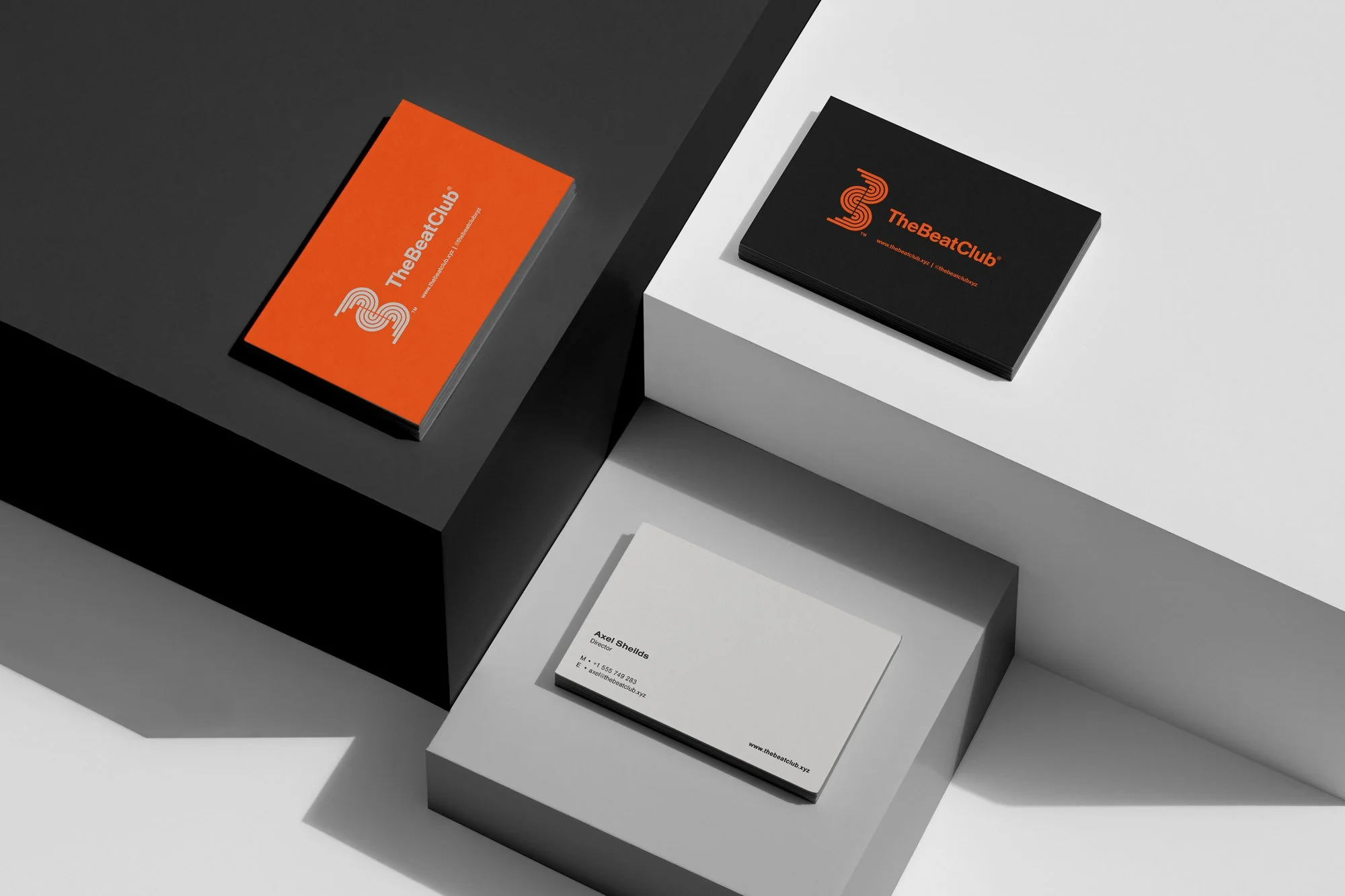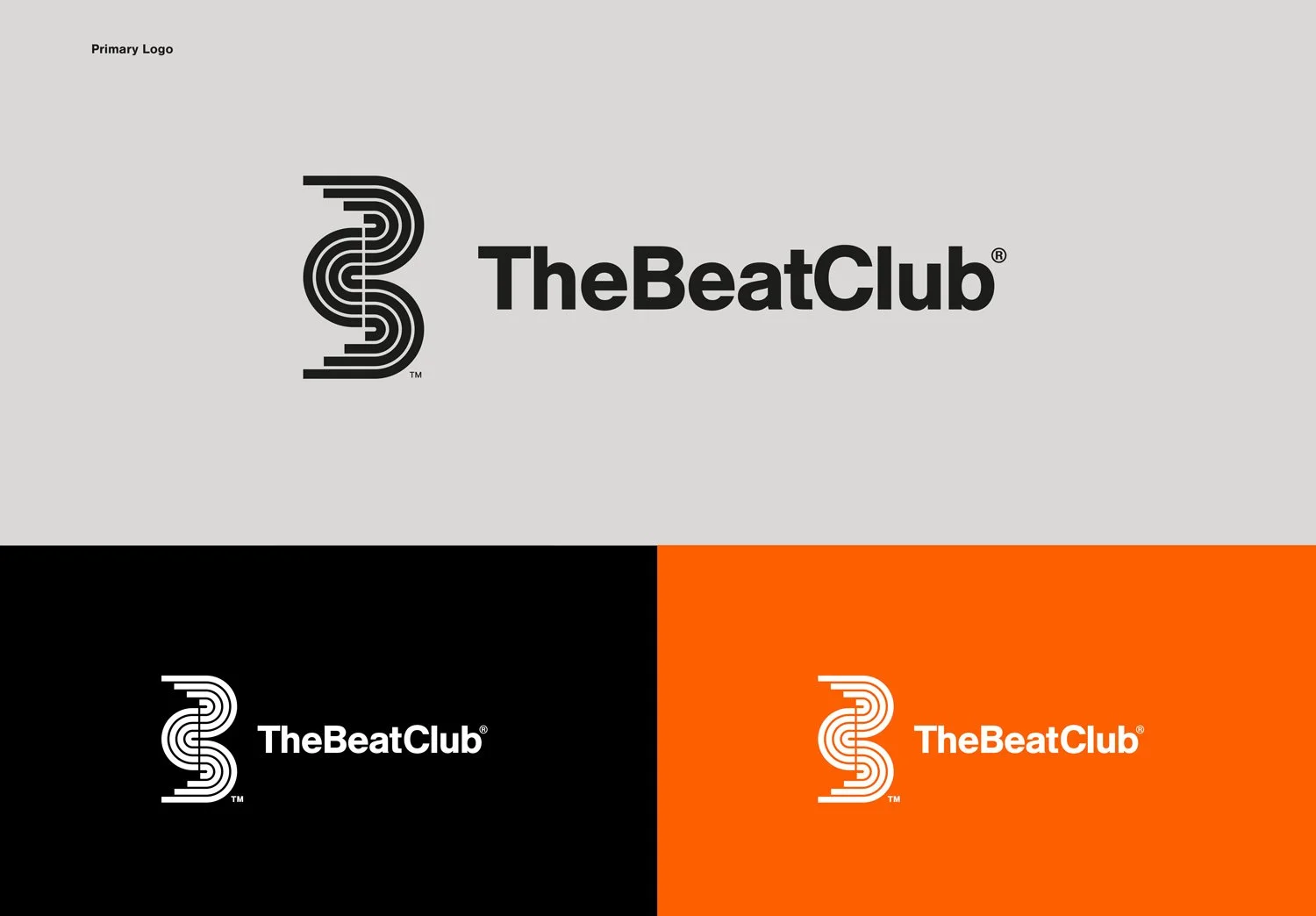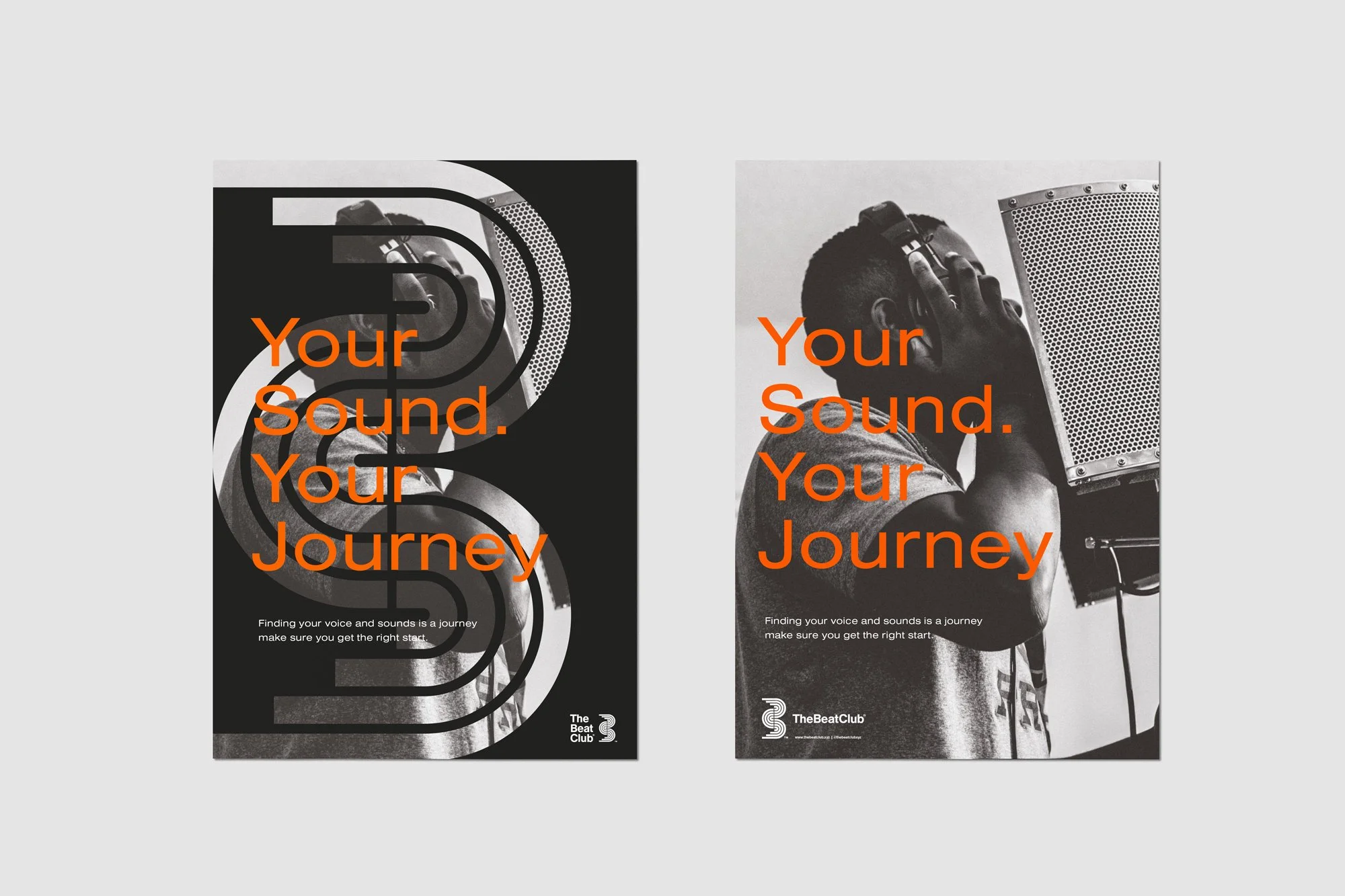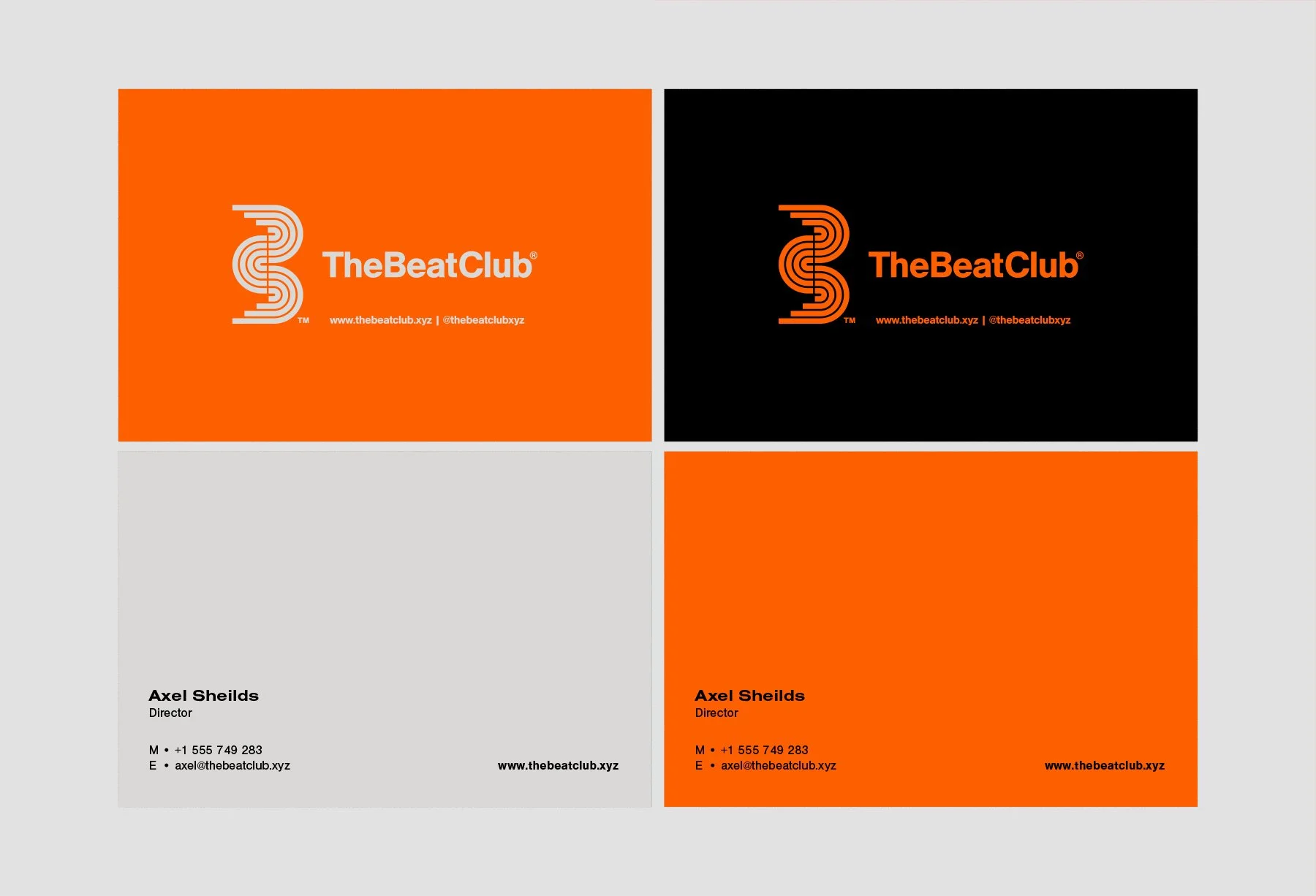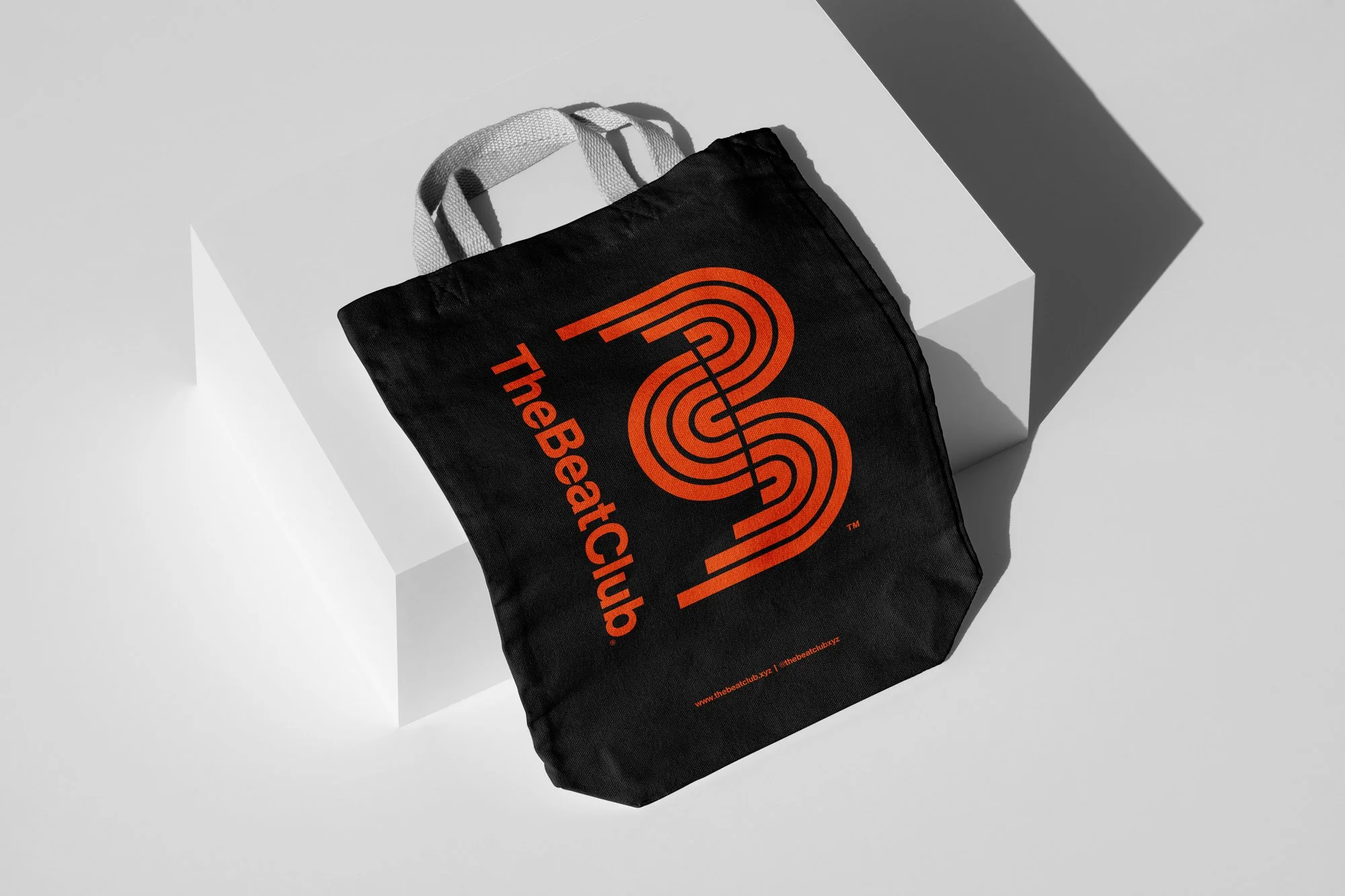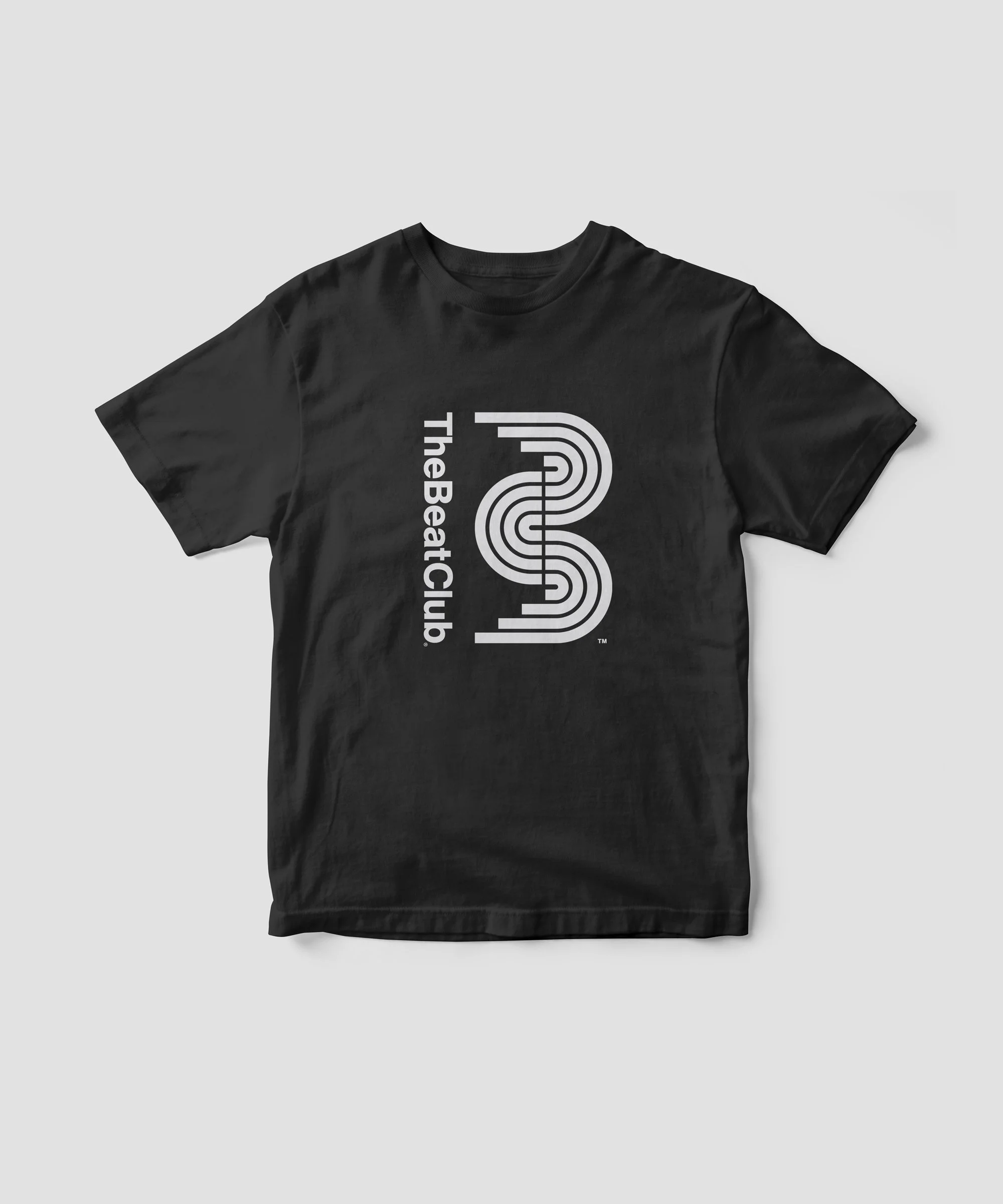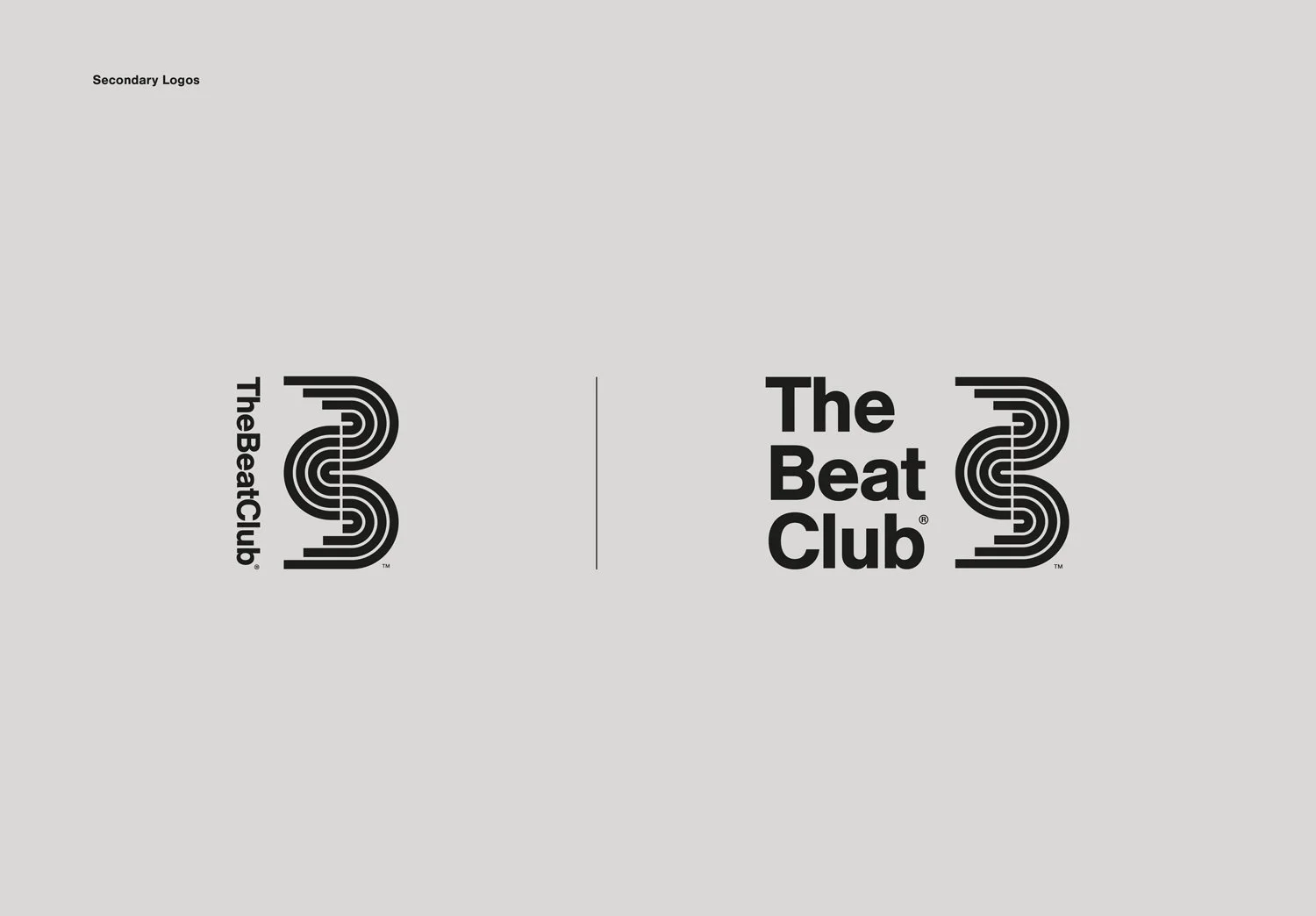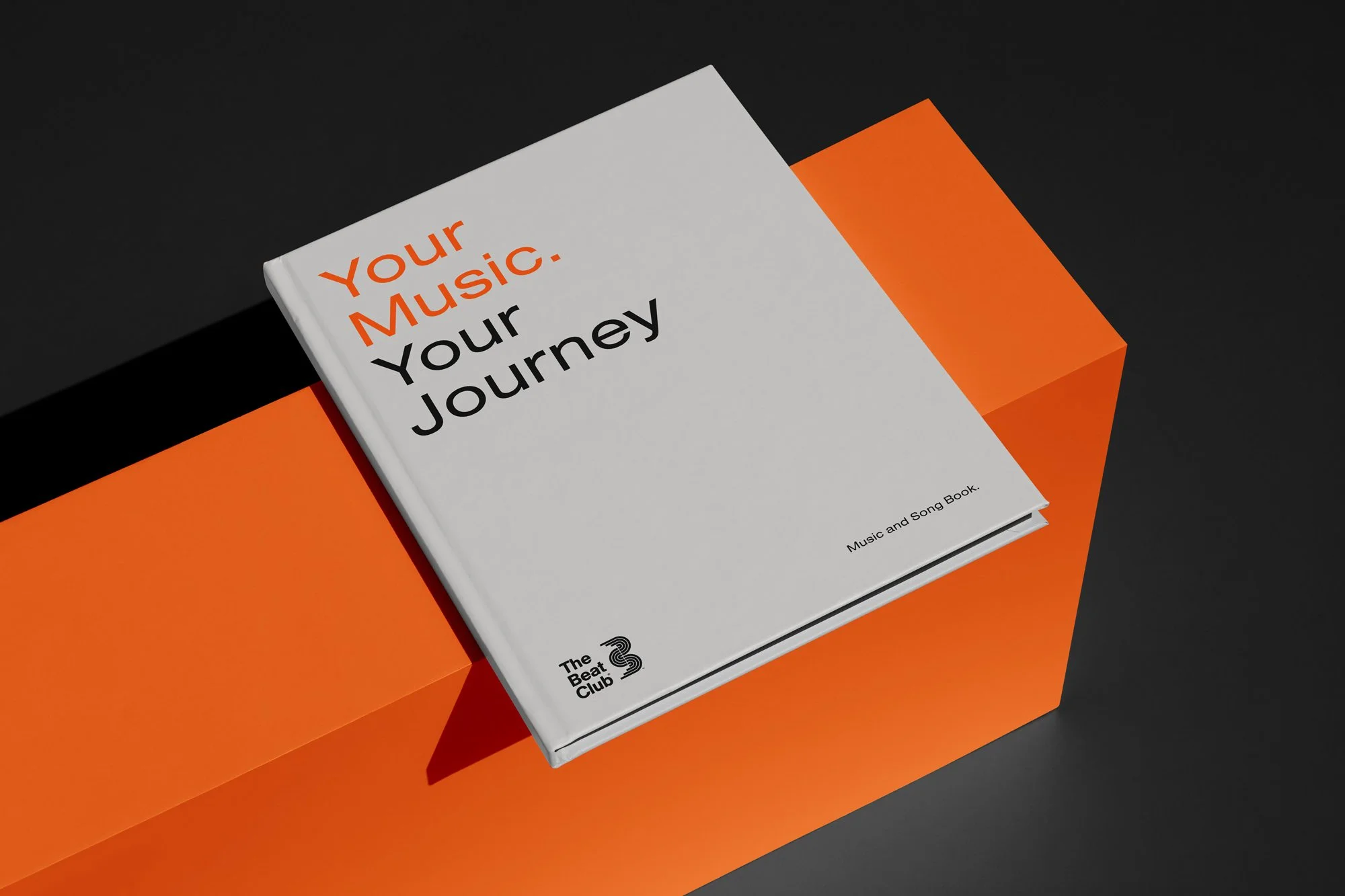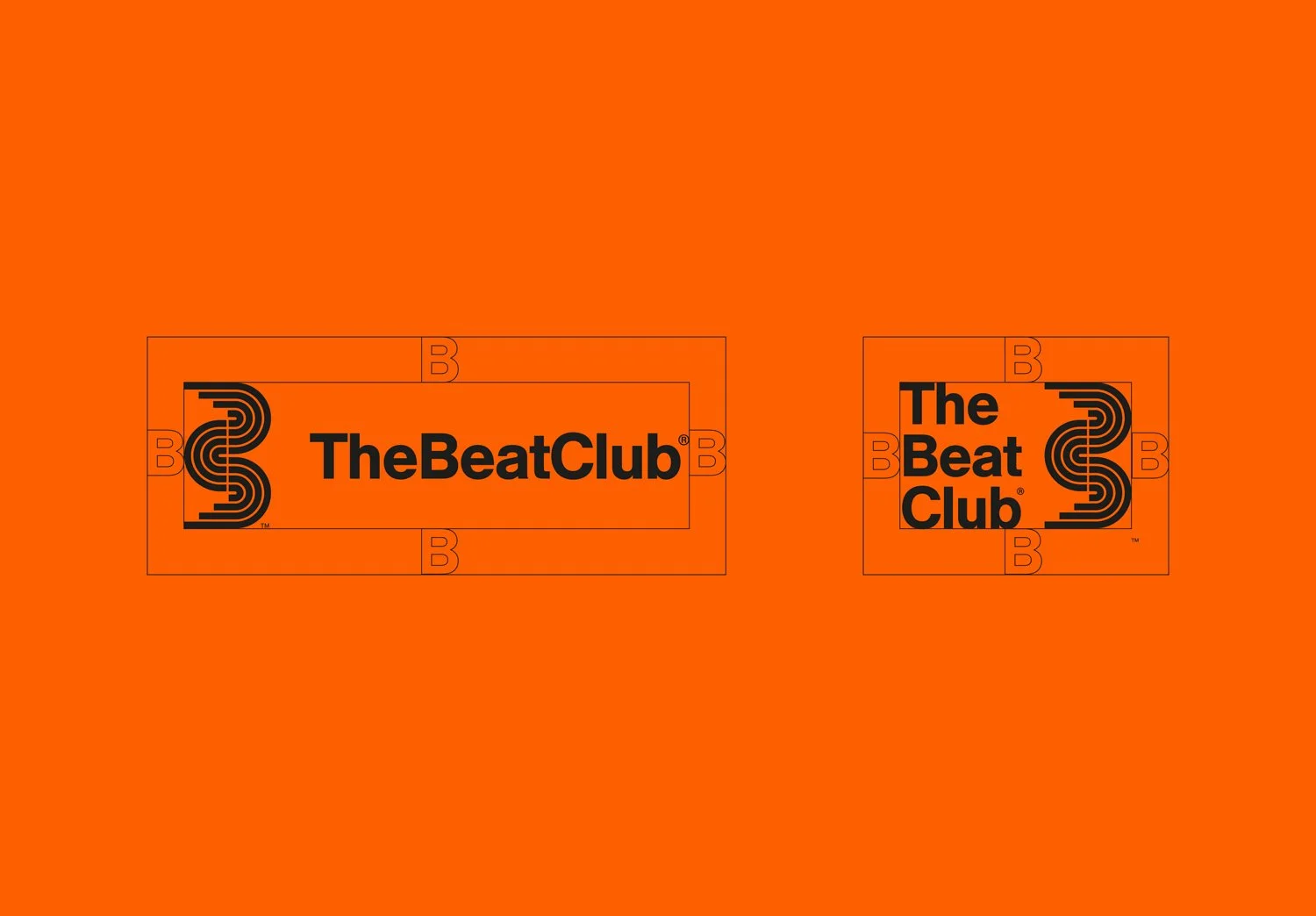
TheBeatClub
Logo conceptualisation, design and application for TheBeatClub. The Logo mark has been created by combining the visual of a sound equalizer with a B and C. The brand needed to be clean with a minimal color palette but strong visually. Application of the brand included stationery, books, apparel posters and packaging boxes.